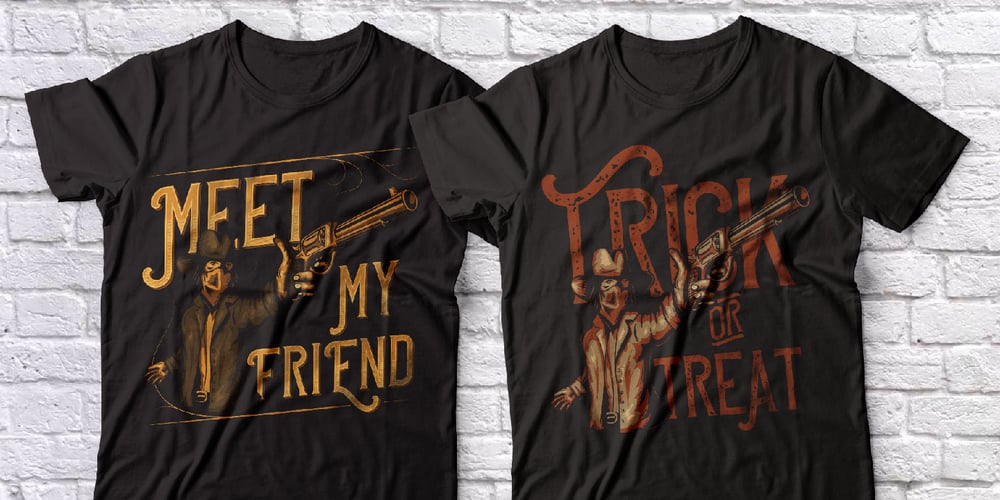
Quick Or Dead Font Family was designed by Oleg Voznyy and published by Vozzy. Quick Or Dead contains 6 styles and family package options. A vintage look layered label font named “Quick or Dead”. This font was inspired by American wild west history. The family includes six styles (including effect styles), for sample look at preview. This font will good viewed on any retro design like poster, t-shirt, label, logo etc. For using effects layers: – Type your text in Regular. – Copy that and paste at the same position. – Change the style to Shadow or Texture. Alternates and catchwords: – Capital letters are different than small (look to the preview). – Several small letters have alternates (look to the preview). – For the catchwords type the word (for sample ‘with’), select that and turn on ‘Discretionary Ligatures’ on the ‘OpenType’ tab. Or paste it from ‘Glyphs’ tab in any place on your text. This in Illustrator. In Photoshop ‘Discretionary Ligatures’ you can find in the menu Type – OpenType.